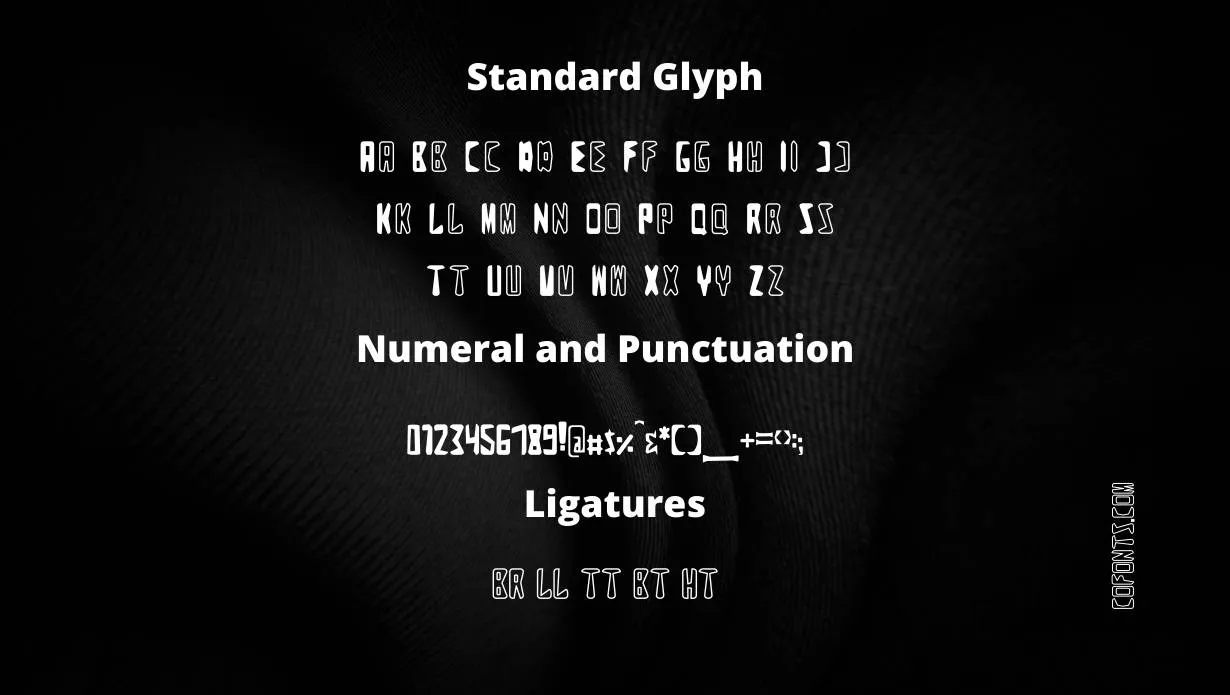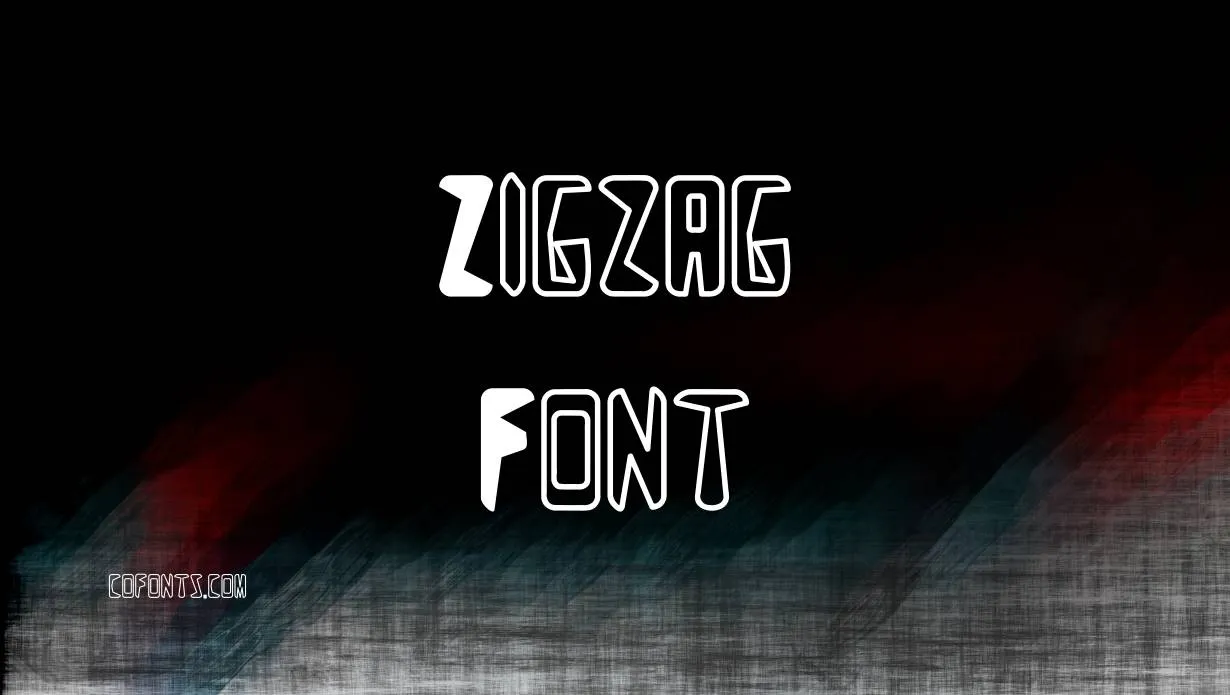
Rusd has taken the step to develop Zigzag Font, it falls in the fancy text style category. With this font, you will be able to create beautiful typography and decorative designs. It is also possible to pair the font with its identical fonts.
This classic font can be used to create beautiful fancy designs that will enhance your projects efficiently. It is very close to the planet benson font. Many enterprises are using this font for different projects, such as clothing patterns, mug designs, commercial designs, and printing designs.
Advertisements and social media posts can be designed using this imaginary font. You can also use this typeface for designs for invoices, articles, and legal documents. A different feature of this font is the online generator tool that was designed by the author.
Usage of Zigzag Font
The letters of this typeface, have a very sleek look there are few characters in every letter of this typeface that has the right height, and width, and idealized space between the letters. The fancy design of this typeface makes this font an incredible choice for dynamic plans.
The text style may change depending on the letters chosen. A few textual styles don’t acknowledge unusual characters or were made for a one-off action. You can utilize this typeface to make interesting plans, covers, shop and store names, and logos.
Also, the Zigzag font is idealized for branding projects, houseware plans, and item bundling. The typeface is commonly used by graphic designers and advertising agencies. A stylish website can be created with this font imported into a CSS file. Several amazing designs have been created using this typeface.
Zigzag Font Family View
Name | Zigzag Font |
Style | Fancy |
Designer | Rusd |
Zigzag Font Family (Includes 03 Typeface)
- Zigzag Medium
- Zigzag Regular
- Zigzag Kigali Std
What kind of Zigzag Font?
This is a fancy typeface and the main designer is Rusd. It has a unique style that makes your projects look amazing.
Where can we use Zigzag Font?
You can use this typeface for a wide range of designs, including logos, artwork, brands, fashion, websites and blogs, theme designs, and visiting cards.